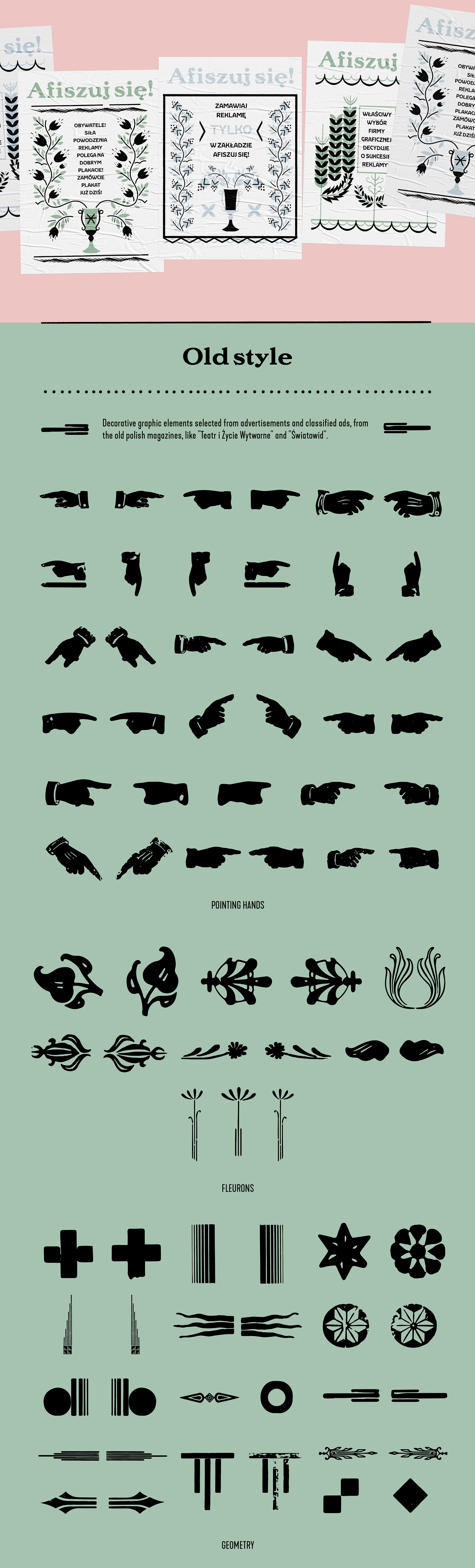
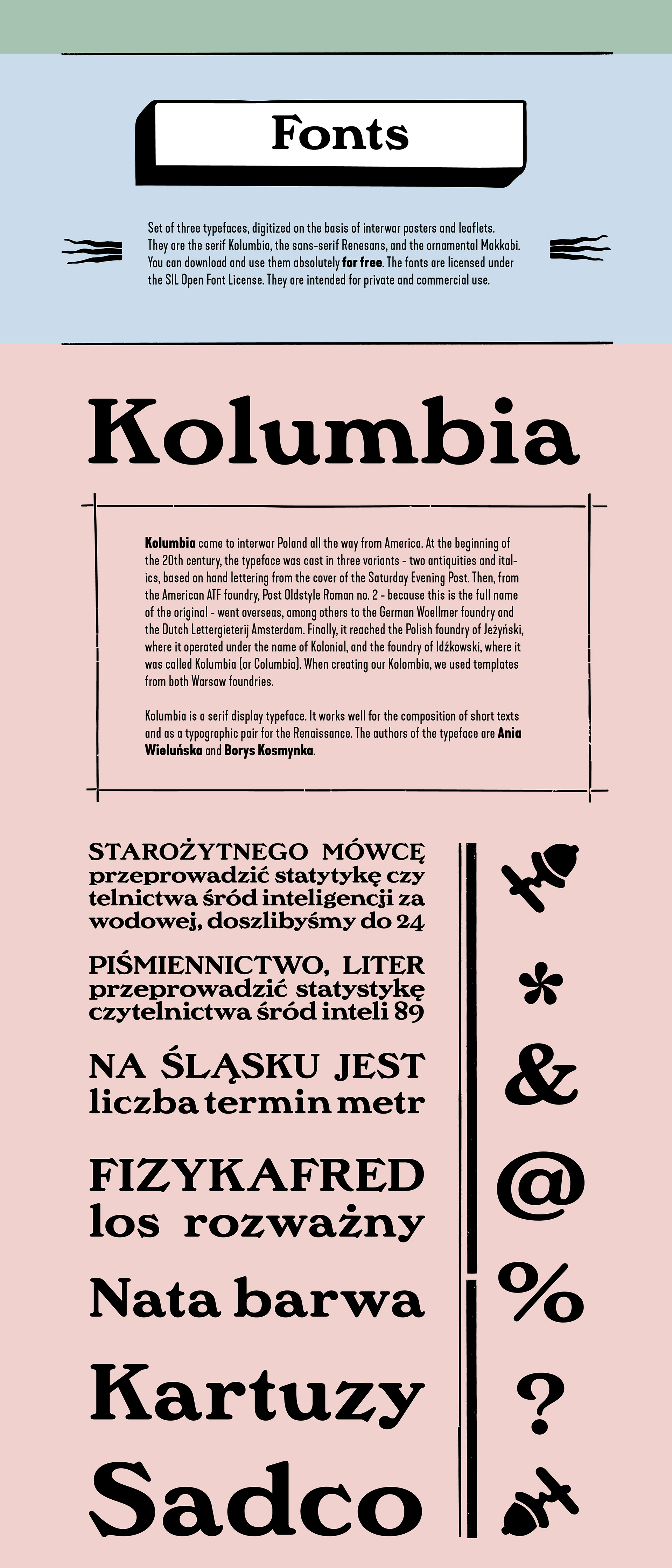
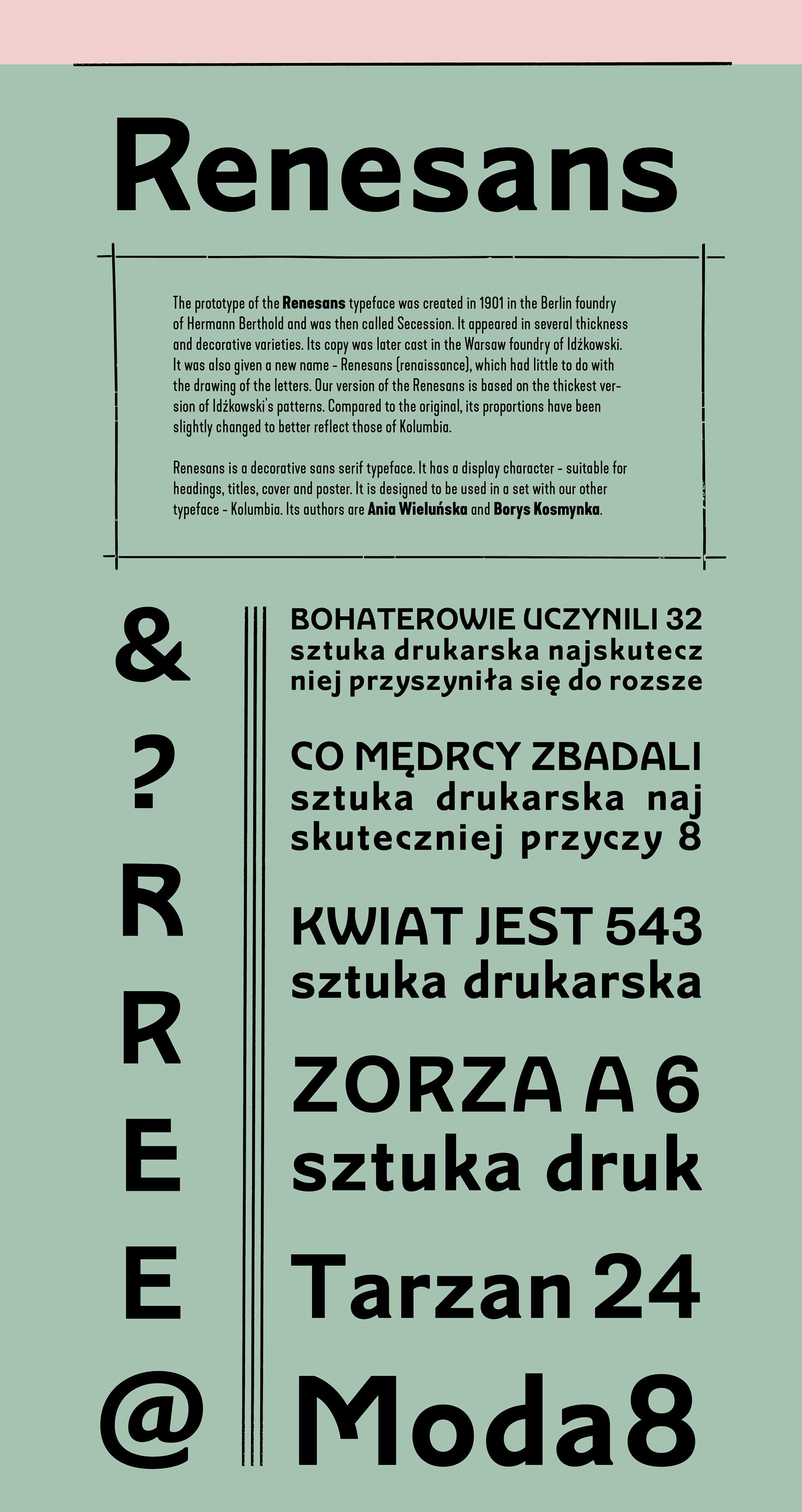
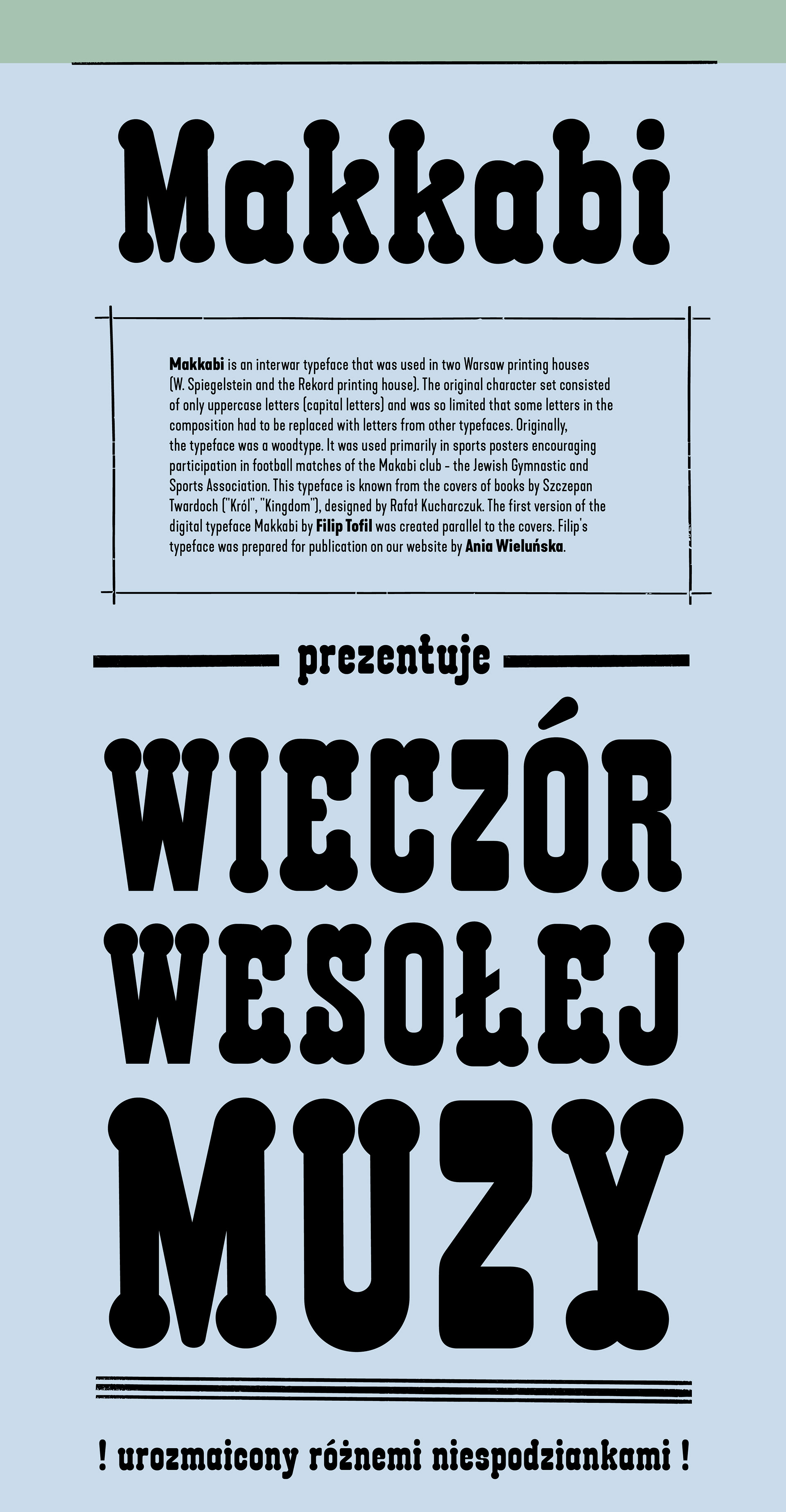
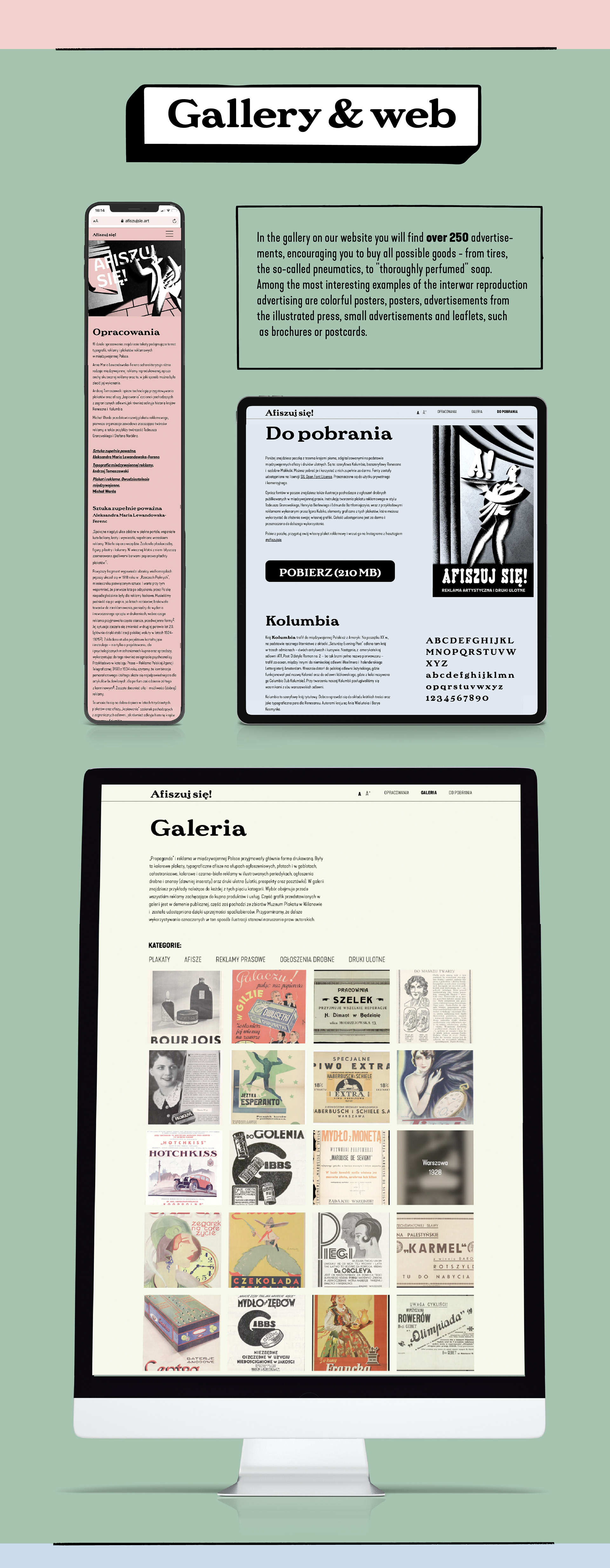
Afiszuj się! (pl. Let’s show off!) is an online project devoted to interwar Polish advertising, in the form of posters, advertisements in the illustrated press, newspapers and leaflets. On the website afiszujsie.art you can find a gallery containing the most interesting examples of polish advertising from the beginning of 20th century, and absolutely free (for personal and commercial use) package containing 3 typefaces and plenty of ilustrations from the era! Co-financed by the National Center for Culture as part of the Culture on the Web program. authors of the project: Sonia Jaszczyńska, Ania Wieluńska texts: Aleksandra Maria Lewandowska-Ferenc, Andrzej Tomaszewski, Michał Warda proofreading and editing: Elżbieta Stachyra authors of the fonts: Borys Kosmynka, Filip Tofil, Ania Wieluńska ilustrations: Igor Kubik research query: Agnieszka Woźniak-Wieczorek programming: Michał Czarnota translation: Anna Naumova support: OKI OKI Studio, Mateusz Machalski